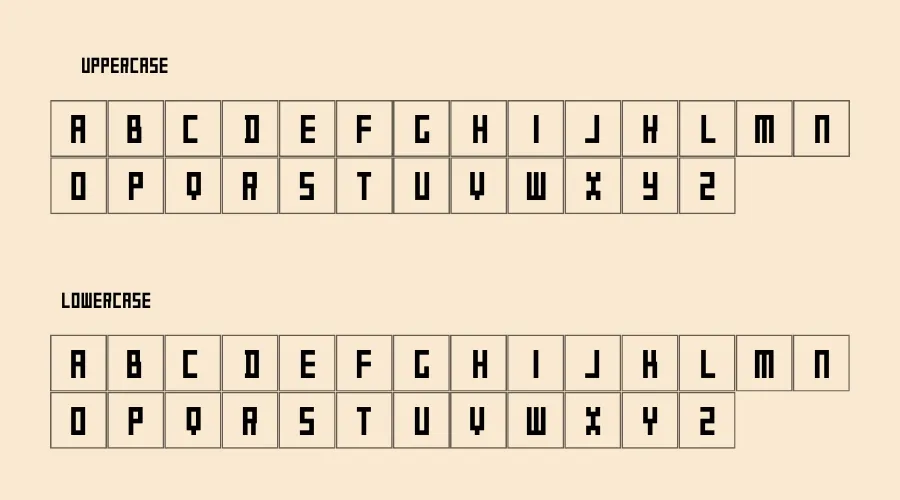
About P22 DeStijl Tall Font
In this article, we will present to you an elegant and good-looking display texture, known as the name of P22 DeStijl Tall Font. It was developed by two popular typographic designers Theo Van Doesburg and Richard Kegler with a unique texture look.
This font was published by P22 Type Foundry in 1982 and includes 4 unique styles. It has attractive futures that contain uppercase, and lowercase letters, symbols, digits, and punctuations.